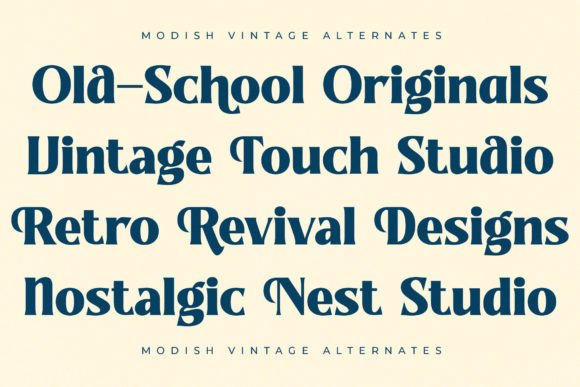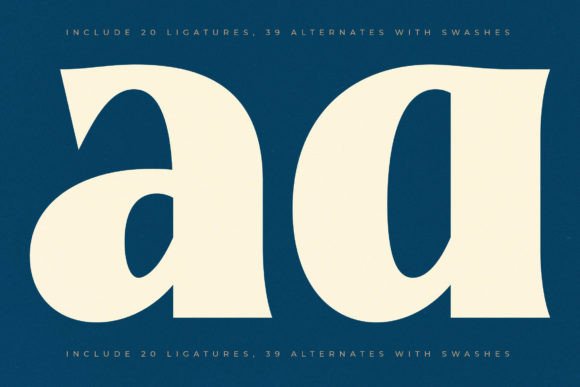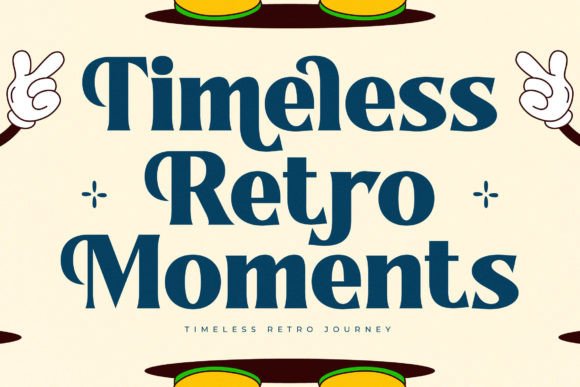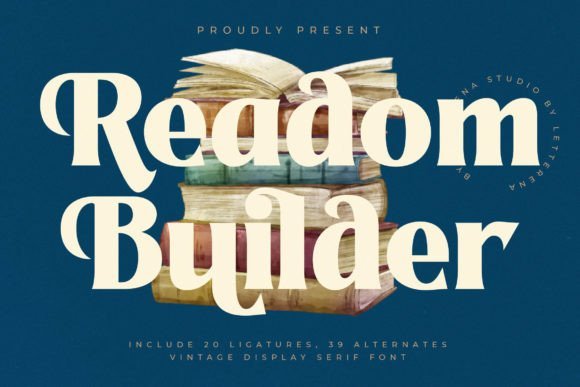
Introduction to Readom Builder Font
Readom Builder – Vintage Display Serif , from Letterena, is a Luxury Serif font, suitable for any projects such as: logos, branding projects, homeware designs, product packaging, mugs, quotes, posters, shopping bags, t-shirts, book covers, name card, invitation cards, greeting cards, label, photography, watermark, special events, and all your other luxury and beautiful projects that need a Luxury Serif taste.
Readom Builder – Vintage Display Serif , from Letterena, is a Luxury Serif font, suitable for any projects such as: logos, branding projects, homeware designs, product packaging, mugs, quotes, posters
Key Features of Readom Builder Font
Readom Builder Font offers exceptional quality and versatility, making it a valuable addition to your design toolkit. Whether you’re creating for personal projects or commercial use, Readom Builder Font delivers professional results.